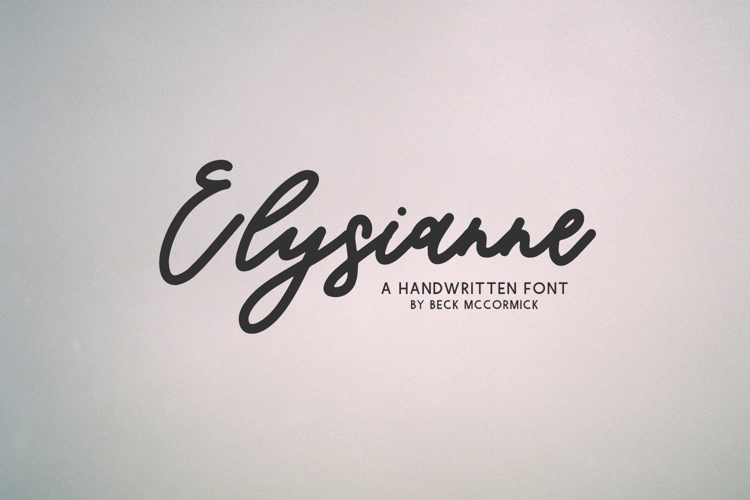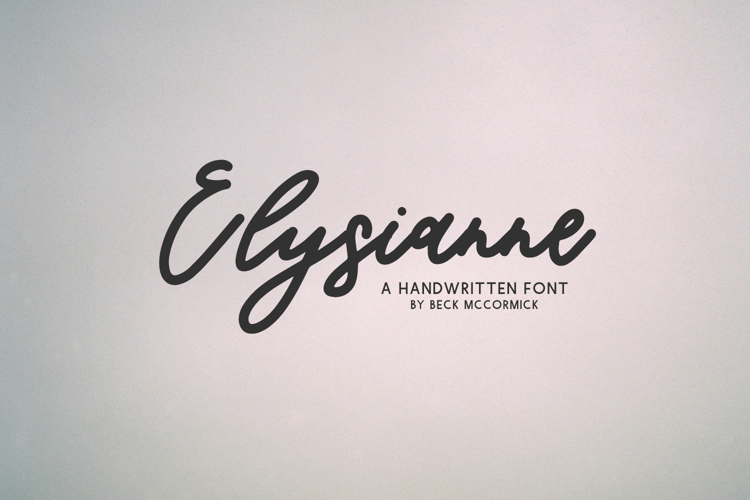
Introducing Elysianne, a modern calligraphy font.
Elysianne is best for:
- feminine, crafty projects with your Cricut or Silhouette machine, or your SVG design business
- farmhouse decor and crafts
- digital planners & apps like Goodnotes
- website design + website accents, blog design
- feminine graphic tee shirt design & other apparel